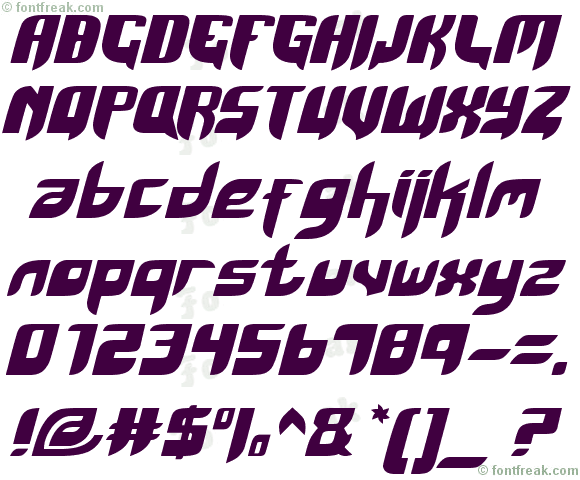
kaum keras kepala
Kaum Keras Kepala is a striking display typeface designed by Azwar Rakhman, released as a freeware font in 2009. This unique typeface falls into the decorative category, characterized by its bold and eye-catching visual style. The font showcases a strong, geometric structure with a playful yet sophisticated twist that makes it a standout choice for various design projects.
Visually, Kaum Keras Kepala features a medium stroke weight, providing a sense of balance and stability. The design incorporates moderate contrast, allowing for easy readability while still maintaining an artistic flair. The spacing between the letters is thoughtfully crafted, ensuring that each character stands out without feeling overly crowded. Its decorative elements include rounded edges and distinctive curves, lending a modern touch that makes it suitable for both contemporary and traditional applications.
This font is perfect for a range of creative uses, such as wedding invitations that require an elegant yet bold statement, eye-catching movie posters that draw attention, trendy restaurant menus that enhance the dining experience, and vibrant branding materials for small businesses looking to make an impression. Its versatility makes it an ideal choice for graphic designers, small business owners, and content creators who want to elevate their projects with a unique typographic style.
What sets the Kaum Keras Kepala font apart is its ability to balance creativity and functionality. Its distinctive design allows it to shine in various contexts while maintaining readability, making it an excellent option for anyone looking to add a touch of flair to their work. For those interested in exploring this captivating typeface, the Kaum Keras Kepala font free download is available, offering an exciting opportunity to incorporate it into your next design project.